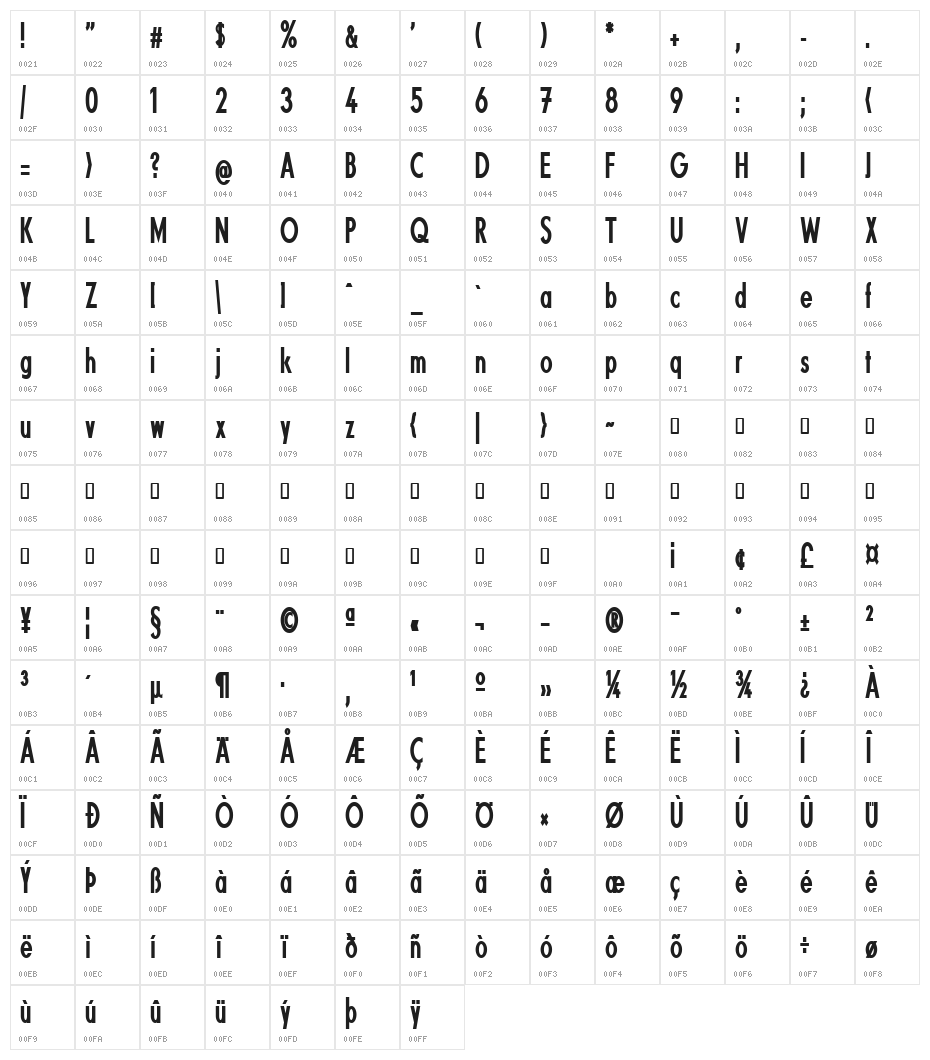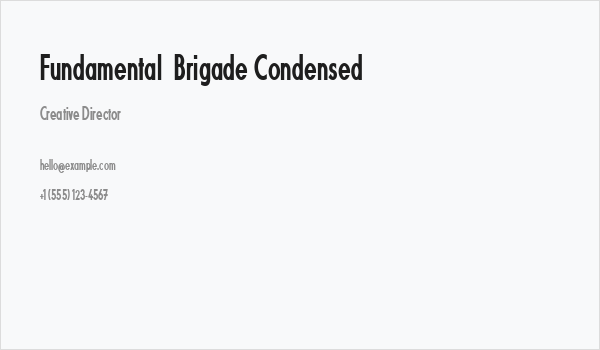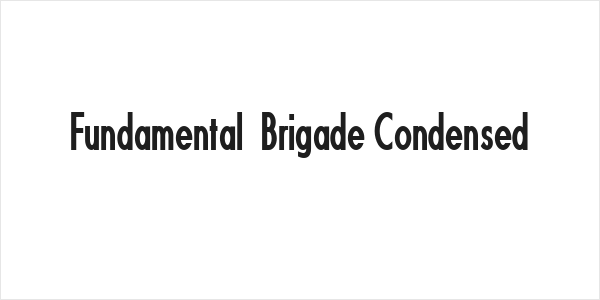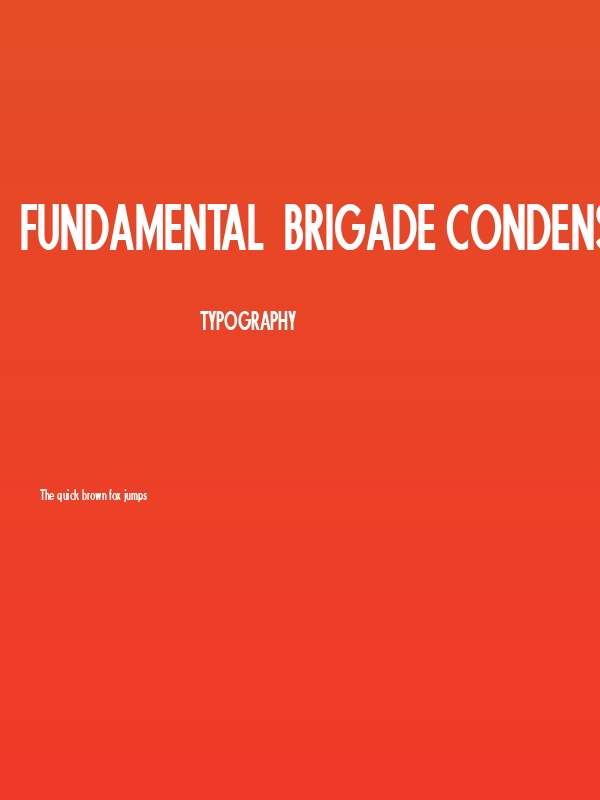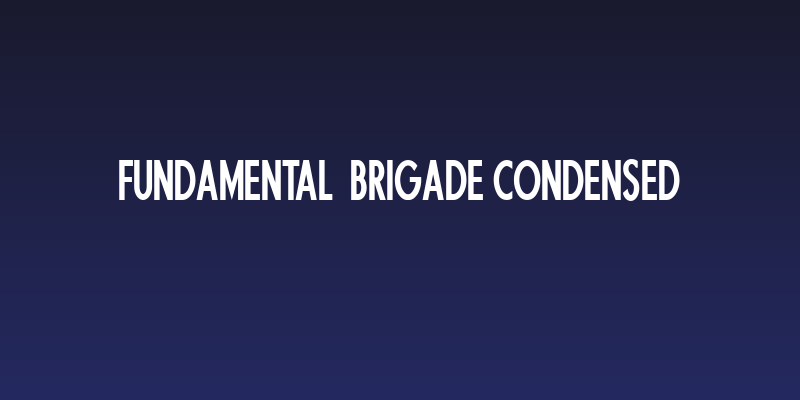
Fundamental Brigade Condensed Font
Fundamental Brigade Condensed Description
This font features a bold and condensed style, characterized by its thick strokes and narrow letterforms. The uppercase and lowercase letters maintain a consistent height, contributing to a uniform appearance. The numerals are equally bold, ensuring visibility and impact. Special characters are designed with the same weight and style, providing a cohesive look across all elements. The overall design is modern and assertive, making it suitable for attention-grabbing headlines and impactful statements.